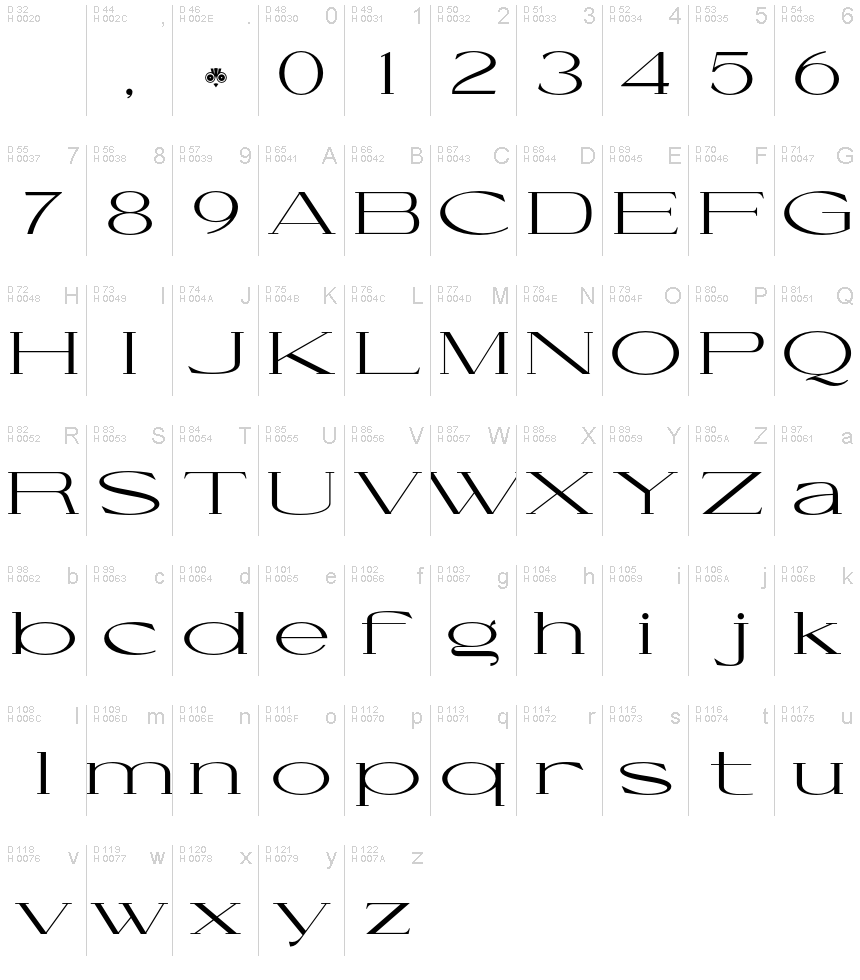
Cellofy-ExtraExpanded
Cellofy ExtraExpanded font, part of the Cellofy family by Owlking Project, is a striking serif typeface notable for its expanded width.
With its elegant curves and bold presence, this free font exudes sophistication and originality, making it ideal for eye-catching headlines or impactful branding projects. Its expansive design brings a sense of grandeur and authority to any text, whether you're crafting luxurious invitations or stylish editorial layouts. This font’s unique style enhances readability while adding a classic yet contemporary flair to your designs.